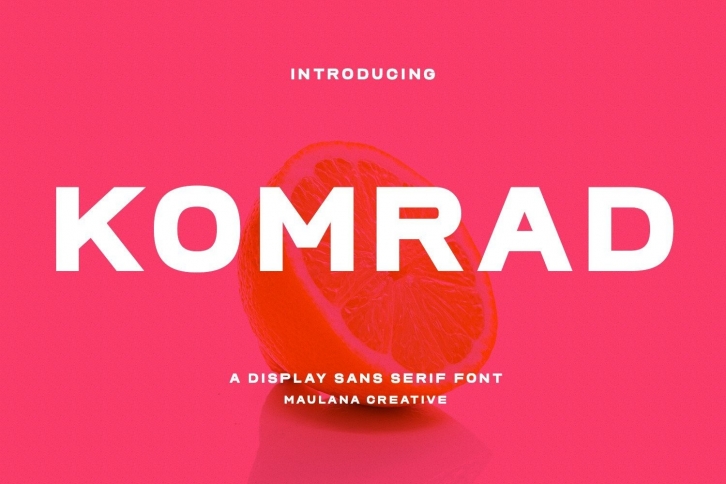
Komrad is a cool and modern sans serif display font. Add it to posters, headlines, blog posts, titles, logos, social media posts, marketing, or promo materials, and watch how it makes them stand out!